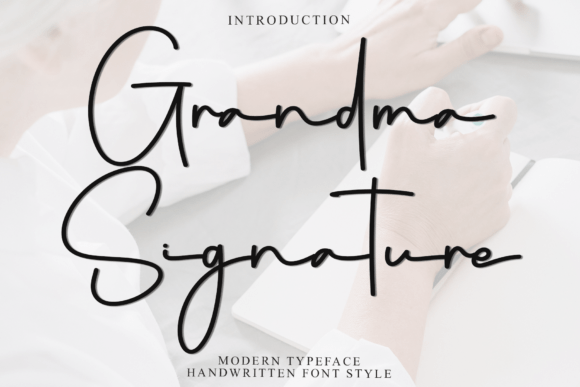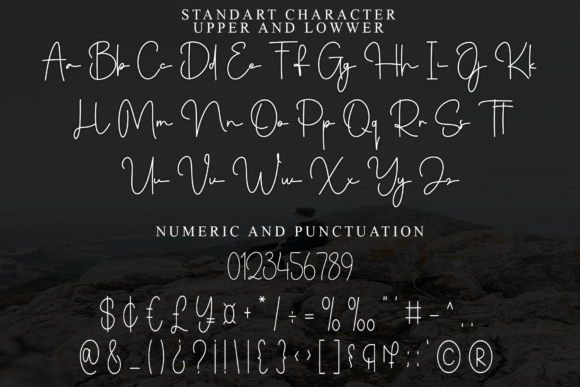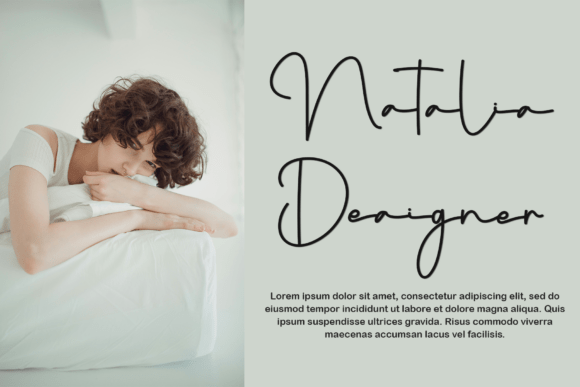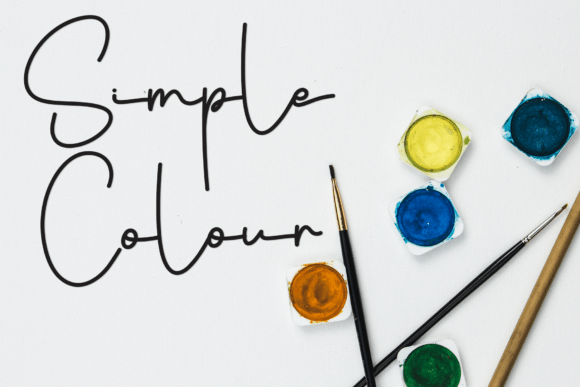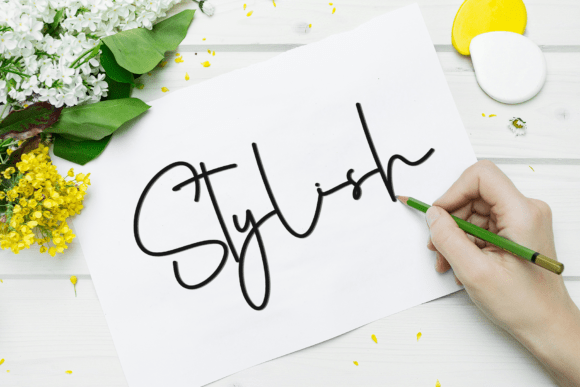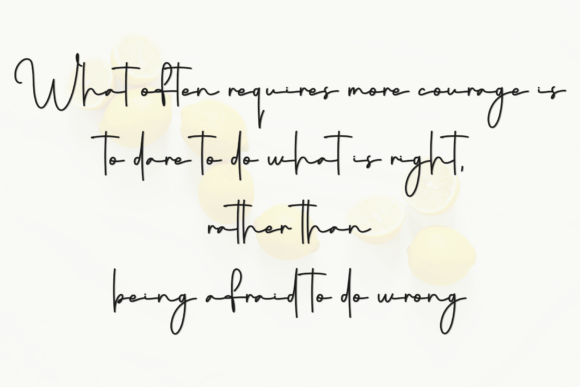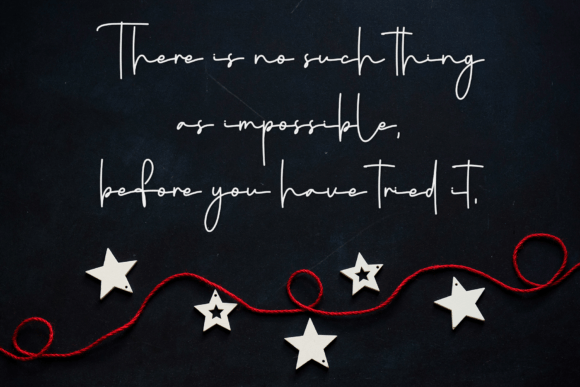
The Magic of the Holiday Season in Type
It’s that time of the year when creativity knows no bounds, and the air is filled with the spirit of the season. You’re rummaging through your craft supplies, searching for the perfect embellishments to add that extra oomph to your holiday cards. The sound of jingling bells, the twinkle in the Christmas lights, and the warmth of a crackling fireplace – it’s all so enchanting. But what’s missing from your design? The perfect font, of course!
Enter the Grandma Signature Font, a festive and merry typeface that captures the essence of the holiday season. This delightful font is perfect for greeting cards, gift tags, and holiday-themed projects. Its decorative elements and whimsical flair add a touch of magic to your words, making it a valuable asset for designers. With its PUA encoding, you can access all the amazing glyphs and ligatures with ease, making it a must-have for any holiday design project.
Grandma Signature Font Key Features
- Unique Characteristics: Features a warm, cursive script with subtle flourishes, evoking a sense of nostalgia and personal touch.
Designer Review: Grandma Signature Font
Overall, I think Grandma Signature Font is a great addition to any designer’s toolkit. Here’s why:
- ✨ Unique style: This font has a quirky, hand-drawn feel that adds a touch of personality to any design project.
- ✨ Versatile: Whether you’re creating a card for a grandmother or a vintage-inspired advertisement, Grandma Signature Font is sure to impress.
- ✨ Easy to use: The font is well-behaved and easy to work with, making it a great choice for designers of all skill levels.
- ⚠️ Limited character set: While the font is great for headings and titles, it may not be suitable for large blocks of text.
- ⚠️ Not ideal for small sizes: The font can become pixelated and difficult to read when used at small sizes.
In terms of overall impression, I would give Grandma Signature Font 4 out of 5 stars. While it has some limitations, its unique style and versatility make it a valuable addition to any designer’s toolkit.
Grandma Signature Font: A Practical Application Guide
The Grandma Signature Font is perfect for creating:
1. Personalized birthday cards and invitations.
2. Handwritten-style quotes and sayings.
3. Customized stationery and greeting cards.
4. Whimsical and playful designs for social media and marketing materials.
Alternatives to Grandma Signature Font
Bad Script
Bad Script is a casual, handwritten font that works well for informal and creative projects. It has a similar feel to Grandma Signature Font but with a more modern twist. Use it for social media graphics, blog posts, or any project that requires a touch of personality.
Luckiest Guy
Luckiest Guy is a bold, expressive font that adds a sense of excitement to any design. While it’s not as elegant as Grandma Signature Font, it’s perfect for headings, titles, and other elements where you want to grab attention. Use it for advertising, promotional materials, or any project that requires a bold statement.
Great Vibes is a elegant, cursive font that exudes warmth and sophistication. It’s similar to Grandma Signature Font in its classic, timeless feel but with a more refined touch. Use it for wedding invitations, business cards, or any project that requires a sense of luxury.